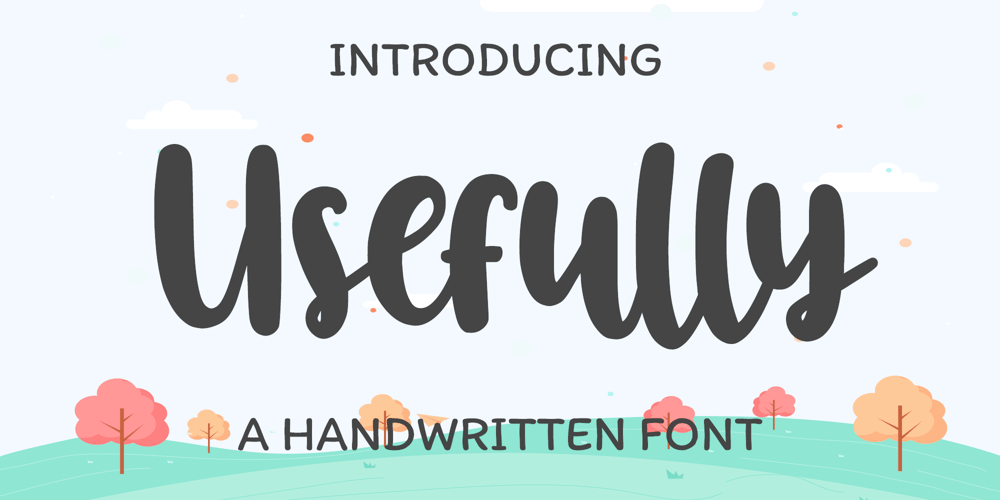
Usefully Font Family was designed by Dian Haniffan Hadi and published by Beary. Usefully contains 1 styles and family package options. Usefully is a quirky and laid-back handwritten font. Whatever the topic, this font will be a wonderful asset to your font library, as it has the potential to enhance any creation.